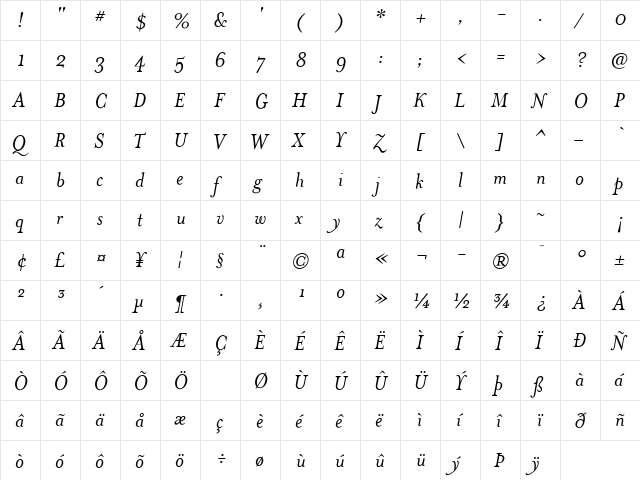
MrsEaves RomanItalic
Design Context for MrsEaves Typeface
MrsEaves is a composed and adaptable typeface that performs quietly and consistently across a wide range of design contexts. Its italic angle brings a sense of urgency and motion to the letterforms.
Pro Tip: Try MrsEaves for annotation and caption copy alongside an upright companion — the contrast in angle creates a dynamic but ordered typographic system.